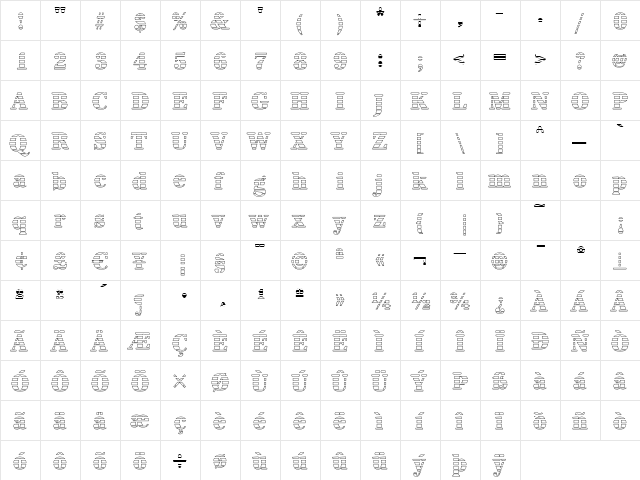
IrisBeckerGradoN-ExBold Normal Font Preview
IrisBeckerGradoN-ExBold Normal
IrisBeckerGradoN-ExBold Normal Font Details
Design Context for IrisBeckerGradoN-ExBold Typeface
IrisBeckerGradoN-ExBold takes a measured approach to typography — its balanced proportions and neutral character make it a reliable workhorse for both digital and print work. Its bold stroke weight gives it real presence on the page.